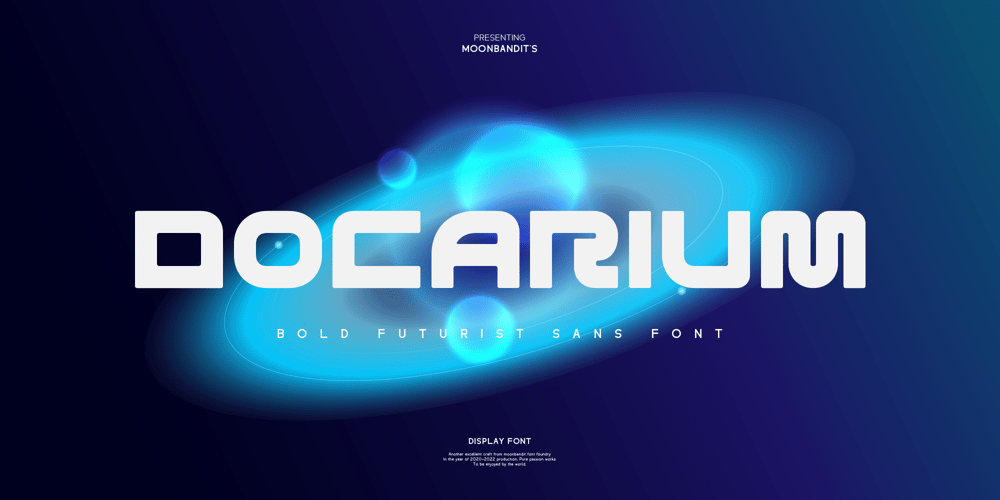
MBF Docarium Font Family was designed by Bramaji Dipa Manggala and published by Moonbandit. MBF Docarium contains 1 styles and family package options. Docarium is a geometric modern minimalist sans serif display font. Wide and bold design gives this typeface a strong and dominant feel. Access the alternate glyphs by simply using uppercase and lowercase. Perfect usage includes logo, poster, display, headline, t-shirt design and many more.